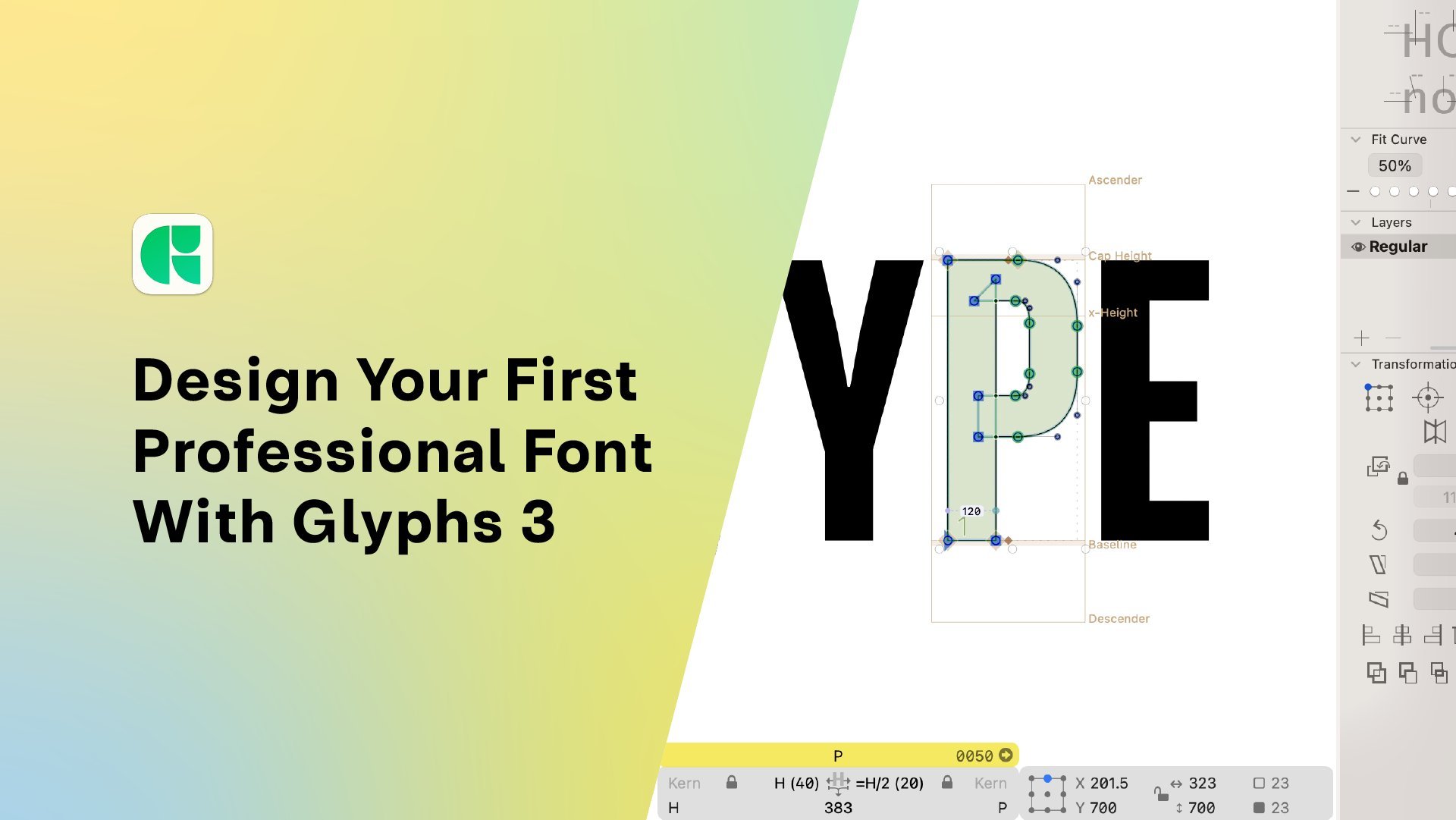
Font Design: Getting Started With Glyphs 3 and Type Design | Adam Greasley | Skillshare
Font Design: Getting Started With Glyphs 3 and Type Design
Introduction
The Project
Sketching and Inspiration
Setting Up Our Glyphs File
Drawing Square Glyphs
Drawing Round Glyphs
Drawing Triangle Glyphs
Drawing Hybrid Letters
Drawing The S
Spacing and Kerning
Testing and Exporting Your New Font
About This Class
Learn how to create your very own font using Glyphs 3.
If you're new to font design and would like to make your own fonts, join me as we learn how to design and build a professional typeface In this intro to type design with Glyphs 3.
In this class, we will break the process down into manageable sections; from setting up your Glyphs file to drawing letters, and making reusable components, through to spacing, kerning and finally exporting your font.
Who this course is for
If you are new to Glyphs 3, this class is for you. You will be guided from having never opened Glyphs 3 to designing and exporting your first working font. Some prior knowledge of creating vector shapes in Adobe Illustrator or similar will be an advantage but not absolutely necessary.
Course Outline
• Introduction
• The Project - To design and build your own font. Using your font design a typographic poster.
• Sketching and Inspiration - Gather inspiration for your new font and make some sketches. This will give you a good idea of how your font will look and how the letters might be made.
• Setting Up Our Glyphs File - We will run through how to set up the glyphs file ready to start drawing letters.
• Drawing Square Glyphs - Letter shapes are categorized into shapes. We start with square shapes.
• Drawing Round Glyphs - Next, we draw the round letters.
• Drawing Triangle Glyphs - The Triangle letters follow.
• Drawing Hybrid Glyphs - Using sections from the; square, round and triangle letter
• Drawing The S - Let's tackle the S, it looks more complicated than it is.
• Spacing and Kerning - Our final stages, spacing and kerning will establish the flow of our font.
• Testing and Exporting Your New Font - Testing, testing! Use your font. Any strange spacing, crashing glyphs and odd shapes will stand out. You will find that as you test you will refine your font shapes and spacing to make it a beautiful and well-balanced font.
1. Introduction: In this course, we're going to make an uppercase san-serif fonts. My name is Adam. I'm a brand designer and I also have an independent type foundry. Ten years ago, I started making fonts. It was after watching the Helvetica documentary where we saw all these foundries and people who were type designers talking so passionately about fonts and how they make them, and what inspires them to make fonts. And that triggered something in my head. I suddenly thought I could also make a fall. Under my foundry cold type car. I've created probably around 20 fonts are far. And these range from geometric sans to brush types. If you go and check out my profile and you'll see some links to those there. If you're a graphic designer or a lettering artist. And in font design to your skill set is a really good addition. This course is for anyone who's new to the glyphs software and new font design. Together. Whilst we're building our font, we'll go through the glyphs software and learn how to use the basic functions. So by the end of the course, you'll have a really good grasp of how glyphs works, but most importantly, you'll know how to make a font pink lifts. The goal is to give you a good intro into glyphs and to get you started on your journey, it's a font design. So I hope you'll join me. 2. The Project: Amen project is to make a font and we're gonna do whilst we're learning how to use glyphs three, as we learn, we will be building our font. Once it's built, what better way to show it off than to make a typographic poster or maybe even a set of type of product busters. What I'd like to see in your posters is, how does your work, how does it look, feel, and act? We'll break this class into easy sections. We're going to start by sketching and planning our font. Once we've got that sorted, we will set up our glyphs file. Then we'll start making our main character set. Moving on to numbers and punctuation. Without full character set in place, we'll look at spacing and kerning and then onto testing. Once we've tested and export, That's it. We're done. We've got our full font in class. Follow along with each lesson. If you want to make the exact same style of font that I'm making, or if you're feeling a little bit more adventurous, create something new. I'd love to see what you come up with. Remember to download the intro part from the resources section below. I've added some cheat sheets and that will really help you get started with learning shock keys. This will help you speed up your process now and I'll try and refer to those keys as well as we go. Don't forget to create a class project. Show us that new font that you've made shows the typographic posters showing off your font. I'm really excited to see what you've done. If you haven't already. Let's get glyphs three installed at the moment, there's a 30 day free trial available on the website. And let's get ready to mx dot 3. Sketching and Inspiration: Before we start designing our form, Let's gather some inspiration that could be from type design books, or it could be from magazines or type specimens, or even just anywhere on the Internet that you've seen some nice topography and do some sketches. Knowing where you want your font to go and how you want your font to be used is gonna be a huge benefit when we're actually designing in Glyphs. There's an intro pack available for you to download through Skillshare. The intro pack, you'll find a sketchpad template with metrics lines already on there. You'll also find a glyphs file, which is pre-med with all the characters that we're gonna be using. And you'll find glyphs cheat sheet with all the shortcut keys listed. So get sketching and when we're ready, we'll set up our first font file 4. Setting Up Our Glyphs File: Let's start by making our glyphs file. First, we'll choose New File and scroll down to Latin. So an unprepared glyphs for check basic and create a file. This font will be uppercase only, so we're going to remove the lowercase. In the left-hand panel. You can go through all the characters that you want to add to your font. In the intro pack download, you'll find the glyphs file all ready to go that's been prepared for this lesson. If you open up Eclipse template from the intro pack, this is what you'll see. Let's give off on them. The information panel. I think alcohol it Adam's sons. The units per m will keep thousand version is just as you change the new version, make sure to add a y-axis and update features. On the masters. We can see our master name. Ours is regular. The way we're going to change to 400. And you can also see our metrics values. For this point, I'd like to use an overshoot value of around 16 units. For each metric. They'll be a border or a margin. 16 units. For the overshoot. There are lots of plug-ins for glyphs. And one that I can't do is show stem thickness. So if you go to Plug-in Manager, you can scroll down or search for sure stem thickness. And then click Install. Obviously I've already got this installed. So once you've installed it, restart glyphs and it will be activated. And what's your stem thickness does is it gives you this visual of how stem is a section. For this one, you can see that this is 146 units wide. You could use the rule at all. But this is an extra thing that you've got to turn on and turn off. Whereas the shore stem thickness tall is always on. And it just makes life that little bit easier. If you can't see the Schar stem thickness working. Just go to View and then turn on Show stem thickness under View. Now let's set up our file and with it saved, we're ready to go and the fun stuff starts. So in the next lesson, we're gonna be looking at making our square glyphs. Remember if you get stuck at any point, I'm available in the discussion panel on Skillshare. I'll see you in the next lesson. 5. Drawing Square Glyphs: It's good to group glyphs by shapes. We have rectangles, circles, and triangles. The reason we group them is because we'll be using elements from those glyphs to remake other glyphs. You should always try and start with a hedge. It establishes width, height, and stem thickness. Will find that the stem from the hedge is the piece that we're going to be copying and pasting into new glyphs most often. For this one, I'm going to use a stem thickness of 160. I'll duplicate this stem to create both sides of the hedge. Using the arrow keys and the stem thickness tool. We can space our stems perfectly. Now let's add the horizontal stem. This will be slightly thinner than the vertical stem. For optical balance. The vertical stem is one-sixth, so I'll type in 150 for the horizontal stem. Using spacebar, we can preview the ship. Now we've made the hedge. We can move on to making the eye and other square characters. Let's copy this stem from the hedge and we'll use that to make our eye. Now we'll make that E, F and L. F and L shared most of the characteristics of the knee. So we'll start with an a. Again, using the hedge. We'll use the hedge stem and the horizontal bar from the hedge. We'll copy that n to the e to see if your node is perfectly in line with the metric line. And it will show either a circle or a diamond. A circle means that it's within the boundary of the overshoot. If it has a diamond is perfectly in line with the e looking good. We can now use the elements from the E to quickly make the F and the Al. So that's our hedge, E, F and L mad, all that's left is a T. T uses the exact same principles as we've made for everything else here. So I'll leave you to make a t on your own. 6. Drawing Round Glyphs: To make our round letters, we're obviously going to start off with the 0. And to find the width and thickness will use the hedge. Using the hedge as a guide, I'll make an oval. For optical balance, it's likely that your round letters will need some overshoot. And this is where our 16 points of overshoot comes into play. Now, I'll duplicate that shape to make the counter of the, oh, I'll resize it to make sure that all the widths, or even selecting both parts of that. Or I'll cut the shape using command and X and paste that back into our glyph. The curves on are at the moment download the best fit curve really helps to even those curves out. The idea behind the fit curve tool is that it uses a percentage scale to change the amount of curve between two nodes. Using Control, Option, Command and numbers one to eight, you can change the value of that fit curve so it corresponds to the dots underneath the percentages on the fit curve tool. We have a little problem with the Earth. It's filled in, and that's because the path directions are wrong. We can see this by the arrows both pointing to the right. An internal should go clockwise. An external should go counterclockwise. There's a couple of ways we can fix the path directions. The first way is to select the path. Right-click and reverse selected contours. Or we can select all paths in the glyph. Go to path. And correct path direction. I prefer to use correct path direction. I think it's best to let glyphs determine which path should run, which we're now onto the sea. Let's bring that in as a component. I'll decompose the 0 and cut a section from the air to form our C shape. Let's make the queue. Once again, we're going to add that as a component, but this time it will stay as a component and we won't touch it. All that we're going to add is the tail of the queue. Keeping the component or means that if we make any changes to our original or those changes will also be made in the queue. Will start with the C to make our G important it as a component and decomposing it once again. We can take the horizontal stem from a hedge and place it into our GI, our line everything up and just make sure that it's all nice and neat and balanced. Using the fit curve tool to keep the consistency all those curves 7. Drawing Triangle Glyphs: In this lesson, we're gonna be looking at triangle letters. For me, that is a, V, K, M, N, and W. I like to start off with an air for my triangle letters. I'll copy and paste the stem from the hedge and then skew that into the perfect diagonal shape. Using the hedge as a reference for width. I'll move the stem of the air into the correct position and duplicate that, and then flip it horizontally to create the other side of the air. When putting two lines together like this, the top can look a little fatter than the bottom. So we bring it in at the top to make it look more balanced and a bit more even. I'll use the bar from the hedge to make the bar on the air and just put it into position. The air looks a little thin. So I think I'll move those outer lines further out and reduce the width of the bar. I want to keep the triangle section of the air as neat as possible, but I still wanted to have some control over it. So I'll join the two pieces together. But with this node in the middle, I want to be able to independently control the left and right angles. And as you can see, by just having one node, that's not so easy. So we can use an open corner like this to just move one section at a time or one line at a time. This is rarely useful for corners where you're having to move stuff quite often. It means that you only move one part rather than two parts. I want this section to be exactly the same as the V. So I'm going to make a component from this piece. So if you select it and then go to component from selection, and then call it something that you are going to remember. And that creates a new glyph. Then if we go to our V, we can add this new component into glyph. Then select that and flip it horizontally. There we have our B because it's component. If we want to change anything for the air, is also reflected in the way I like to have them LinkedIn that way. Just so there's consistency between those two characters. For the W, we're going to use the same component as our starting point. But instead of using the component as it is, we're going to decompose it. So we've got these two components in here now, but we can't move them because they're taking the values from our initial glyph from that component, Glenn. These components are set to automatically align if we want to move them, we need to disable the automatic alignment. If we right-click and go to disable automatic alignment, that will give us full control of movement. So we could just put them together like this. But our font is quite narrow. And so this wide version of w would look odd and out of place. So what we're gonna do is decompose this and squish this n. So it looks more in keeping with the type that we've already made. Next, let's work on m and n. I'm going to use the hedge to make the width of the end correct? Answer. Create the diagonal section. I'll duplicate it, one of the stems and just move over the nodes. This will want to be thinner. So I like to just move the nodes in a little bit more. I think that looks pretty good. So I'm going to copy all of this and use this, the majority of them. But obviously the amnesic be a little bit wider. Not too much wider there. We've just gone outside of the margin. So let's just put some positive margin in there just to make sure that we can see what we're doing. I'm going to use that middle stem, copy it, paste it, and then flip that horizontally and place it. Just, and that's what that check where everything is. Then I want to merge this together. Take out those two nodes at the bottom. Just to make our M shape and add in an open corner there again, it's always good to add in an open corner where there's a section like that. It's looking a bit wide, so I'll just bring it in a touch. The cash should be relatively easy. I'm going to start off with the I don't need the dy. Just take the stem and the leg of the R. And we're just going to use that for the care. You can see that the majority of it is already there. Just me, move this piece up to about the center. Select all, copy, and paste it, and then just flip that vertically or horizontally even. Pastime place. Really good-looking care. I'm pleased with that. To finish this off, I'm just going to merge those two pieces together and add in that open corner. Move this in. And then we'll move that one in as well. Just so it looks like it's really connected. We're making really good progress and we've only got a few letters left. 8. Drawing Hybrid Letters: Next up is hybrid letters. This is where we combine elements from our square glyphs and elements from our round lifts to make some square round glyphs, such as a, D, P, and R and B. I'm going to start with D and using sections from i, and we'll create that D shape. I'll copy and paste that i stem into the D. And selecting only the right-hand nodes from the 0, copy those, and paste that into the D glyph as well. With those in place, I'll realign them. We don't need overshoot on a D, just need to make sure that those are perfectly lined up. Again, using that diamond shape as reference. Will do that for the top and of course the bottom. Then we need to extend this shape on the right to make it into a solid shape at the moment, it's not connected. So we need to make sure that it's connected. And we do this with the pen tool. And that's using the P shortcut key. And just make some lines and connect that shape up. I'll do the same for the bottom. Select in the first node and then joining everything together. And you can see that that ship has now become a full shape. When it's filled in like that, you can see that it's everything's connected up. That's our D shape. With just a little bit of tweaking will make sure that everything is nice and balanced and the correct way. From the D, we can then make a pea shape. I'll copy and paste the D into the p.ball. I'll select this curve and re-scale it to create the curve of the p. I'm using the arrow keys up and down to make all those widths, correct? This is where the shore stem thickness plugin comes in really handy because we can see all those thicknesses as we're moving those nodes. We don't have to turn on another tool in order to see that with a bit more tweaking and refining of those nodes. And we're ready to make that. Essentially the R is just the P with a leg. So we'll add the p. And then drawing. I like, I like to use the rectangle tool. And then just select the bottom two nodes and drag those out. You and J, I'll make from the hedge. Starting with you, I'll copy this stem from the hedge. I'll copy the plus that enter the EU. And then I use the 0 as a guide for the width of the EU. Then we'll build the u using these sections. The bottom of the EU is too tall. And that's because we've taken it from the R. What we want it to do is to resemble more the curvature of the d. And we can do that by bringing the nodes down a little closer to the bottom. And then using our fit curve tool, which is Control Option Command. And I'm using seven. We can make those curves look nice and neat. Once again. To make the j, we can use the u. Copy and paste that into the air. And then we're just going to remove the left-hand side nodes. Chop it just there on an angle. Remove those and they will have our J. For the y. We're going to use our component again. We're going to flip it and then decompose. It. Looks like these nodes and move that into position. Using the stem from the eye. We'll copy and paste that into our y. Center, those two objects. Then I'll tidy up these two nodes and we have a y to make us add. Let's use a t. I'll copy and paste the top of the T and duplicate that to the bottom for the zed. Then copy the stem of the T and use that for the diagram part of this ad. And x can be quite difficult to make. But for this style of font, I prefer to use the diagonal shape that we've already made and decompose it and then scale them down. I'll then copy this and paste it into place and essentially mirror that to make an X. Select everything, make sure that it fits the cap height. A merge it together. Remember to put in those open corners once again. I'll just move everything in so it fits. The rest of the font. Will shuffle these around and make a really nice looking effects 9. Drawing The S: S can be another tough letter, but let's break it down into sections. We'll use a C. We're only using the top part of the sea. So we'll copy and paste it and move these nodes into place. We'll fix these dodgy curves by using the fit curve method. Now let's copy and paste our top into the bottom. Just flip it upside down and place it in the overshoot area. Now we need to join these two pieces together. So we're going to create a link between the top and the bottom. When we have a basic link in place, will group everything emerge altogether. This point, it's a good idea to correct path direction. These blue square nodes show that these can be corners. So what we want to do is double-click them and turn them into continuous lines. This helps with the flow of the letter. Now we just need to move our nodes and arms into place to make a really nice-looking acts. Now we've drawn all the uppercase letters. We have all the knowledge we need to make the rest of our characters. So I'll leave the numbers and the punctuation to you. And I'll see you back here for spacing and kerning 10. Spacing and Kerning: So now we have all our letters in place. We can now start on, spacing is good to use spacing groups. So we'll use the hedge and R and a V, or an heir to create space in groups. For our straight sided glyphs, I'm going to use hedge. For hedge. Let's give this a value of six day. We'll do this for both sides. And an easy way to replicate both sides is using equals. And that will take the value from the left-hand side and use that in the right-hand side as well. Now we can apply the same value, hedge to i, m, and n. So selecting those characters altogether, we can go down to the bottom left and input the values of those side bearings. We're just going to type hedge in both the side bearings values. So we can see here that the sideburns are equal to hedge, which is 60 points. For our round letters will use the R. We can either put in a number value in there and then use our as our standard for other curved letters. Or we can use an equation. I sometimes like to use. Half of hedge. Put an end the equation of equals h over two, which then gives us 30 points. Again, on the right-hand side, equals bar will give us a 30 point value on the right-hand side as well. Just testing those by pressing on hedge few times. We can see how those spaces look. We can apply the values to Q, C, G, zero, and sometimes an S, depending on how close it is to an 0 in terms of the curve. I'm going to use V as our master. But we need to remember to disable automatic alignment through that unbarred the air. And the V. A V has lots of negative space. So we'll give it a small value on the side bearings. We can apply this to the y and to the air, and also sometimes to the w, x, and t. And they let us that how straight and curved sides we can use the value of hedge on the straight side and the 0 value on the curved side. You can of course, just use values for any glyphs that you want. You don't have to group them. I just find that it makes life a lot easier if we have groups on the L. I'm setting this to its own with 16. But on the left-hand side, it has a value of hedge. Because W has slightly less negative space than a V. But we still want to use the V value. We can just use an equation like V plus ten. And that will give us the v-value with an extra ten points. When spacing regularly check against the characters. Press Option Command F to bring up text strings. These are really useful for checking spacing and to see if you've got any missing Glyphs. Similar to spacing groups, we can make kerning groups as well. Let's sell some kerning groups. So for a, I'm going to give this accounting group of air. This might apply to the y or the T as well. And for v, I'll give this a kerning value, our accounting group of v as well. Then between the a and the v, we can make this -20 or maybe more. It might need more than that. If we look at the bottom of our glyphs panel, we can change the blurriness of text. And what this does is it allows us to see the negative space between each letter. So as you can see here, we've got a little bit too much between the a and the v in comparison to the hedge and hedge. So let's just make that minus faulty just to narrow that gap a little more. This is a really good technique just to see what those negative spaces are. Now let's do the other side of the V and the air to match. And obviously this should be a -40. If we type a and V few times, we can see that that spacing is consistent. Now, we're gonna do the W. If we apply the V group value to w, We can see that that pulls it in by -40 as well. However, I think that might be a little bit too much. So let's give this, it's on value, and we'll make that -30. And do the same on the right-hand side as well. Current in groups can be applied to any letter. So let's apply the V group to the y. You can see that that brings through the same values as for the V and the air. So we'll work our way through making current in pairs and kerning groups as we go. Cornyn and spacing protects time and it takes a lot of testing as well. So as we go tests letters and strings of words next to each other and tweak and refine. It's always about tweaking and refining. We can't expect to hit it exactly right on the first time. So we incrementally make better changes and sometimes some changes impact others. But making kerning groups does make that a little bit easier to manage. So next, we're gonna do some testing, will export the font and try out in Illustrator 11. Testing and Exporting Your New Font: We've done a lot of current in and spacing, and now it's time to really give it a test. So we need to go into a letter. We're going to press Option Command F to bring up the strings, the text strings. Now this is where we rarely see how those specimens have been affected. If we need to change anything, go through as many text strings as you possibly can. The more combinations of letters and words and phrases that you can find, the better. Something I always find is when I start using it and typing in Illustrator or InDesign, I'll always find something that I haven't noticed whilst actually making the font. So you'll always just end up going back and tweaking something until you find all those little pieces that you've missed. Before we x-bar, let's add some extra custom parameters into our font. We're going to add and false compatibility check. This, just rolls out any compatibility issues. And also let's add the audit features. Just in case we forget to add features before we export. This will prompt it to do that as we x-bar is a fail-safe. So before we export less of their features anyway, just in case there's anything that needs to be dead. We don't have any open type features or any special characters. So there isn't anything that needs to be updated. But just for good practice will click up there anyway. So now with all the features of dead and double-check on the information panel, we can export our RTF file. Click Export, find where you want to export that to. I like to create an export folder. And then click Open. Be sure that it's postscript. We need to check the RTF. If it's not RTF. If you want to export for web, you can use the WR FF's and the W or F, F2. Before you export, make sure that the removal overlap and auto hint are both checked. And that's it. We've exported our font. And here you can see the Adam sans regular RTF. To install fonts. I really like using font bests. It's a font client. It just means turn in fonts on and off. Just a little bit easier. The font and the font base. Just drag it in and search for your font. Adam's sons, and turn it on using that little dot. The green dot will indicate that it's active. And if we jump into Illustrator, like a text box and search for font, there is knock up the point size and you can see just how good it is looking. Let's try some typing. Time. Adam's sons. If I can spell, then we are proof that this fault works 12. Congratulations and Thank you!: Congratulations, you have just made your very first font in Glyphs three. Thank you so much for taking part in my class. I hope you enjoyed it. Don't forget to add your project to Skillshare. And if you have any questions, use the discussion section in Skillshare and I'll get back to you. But once again, thank you so much for taking my class and I'll see you in the next one.